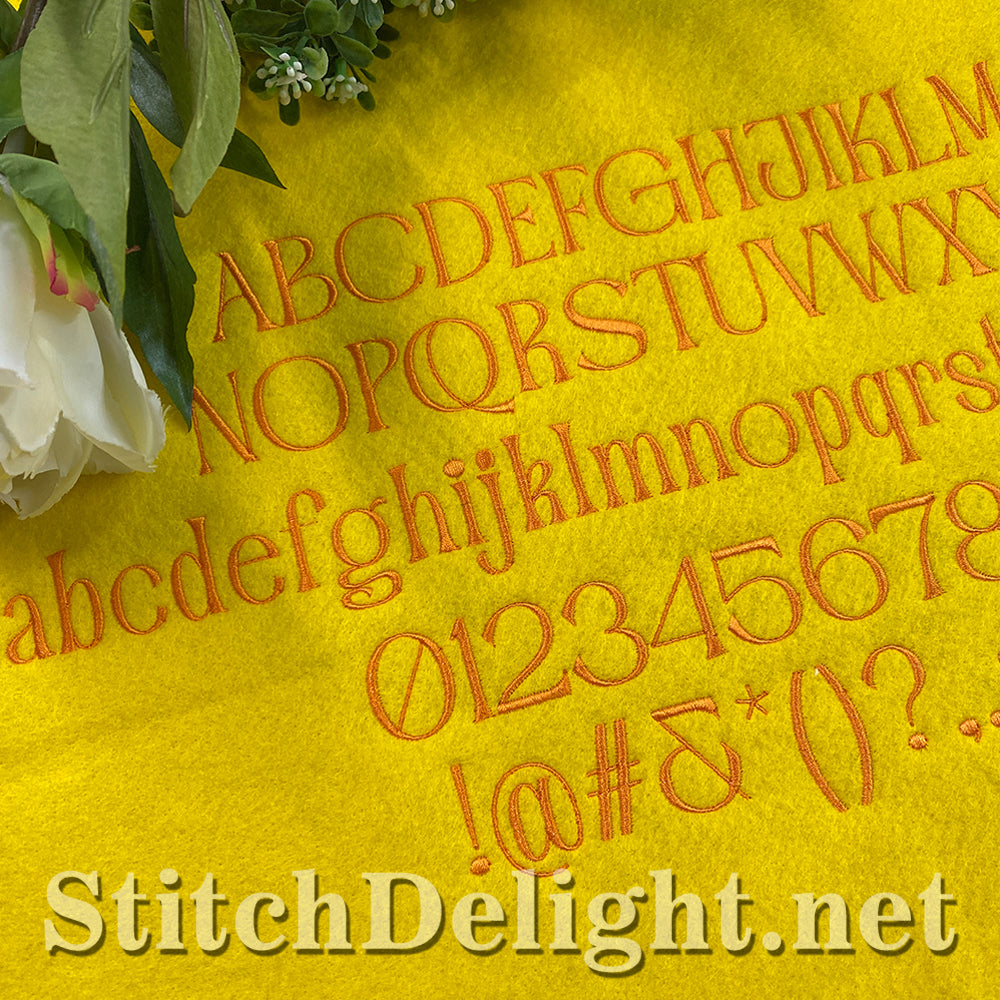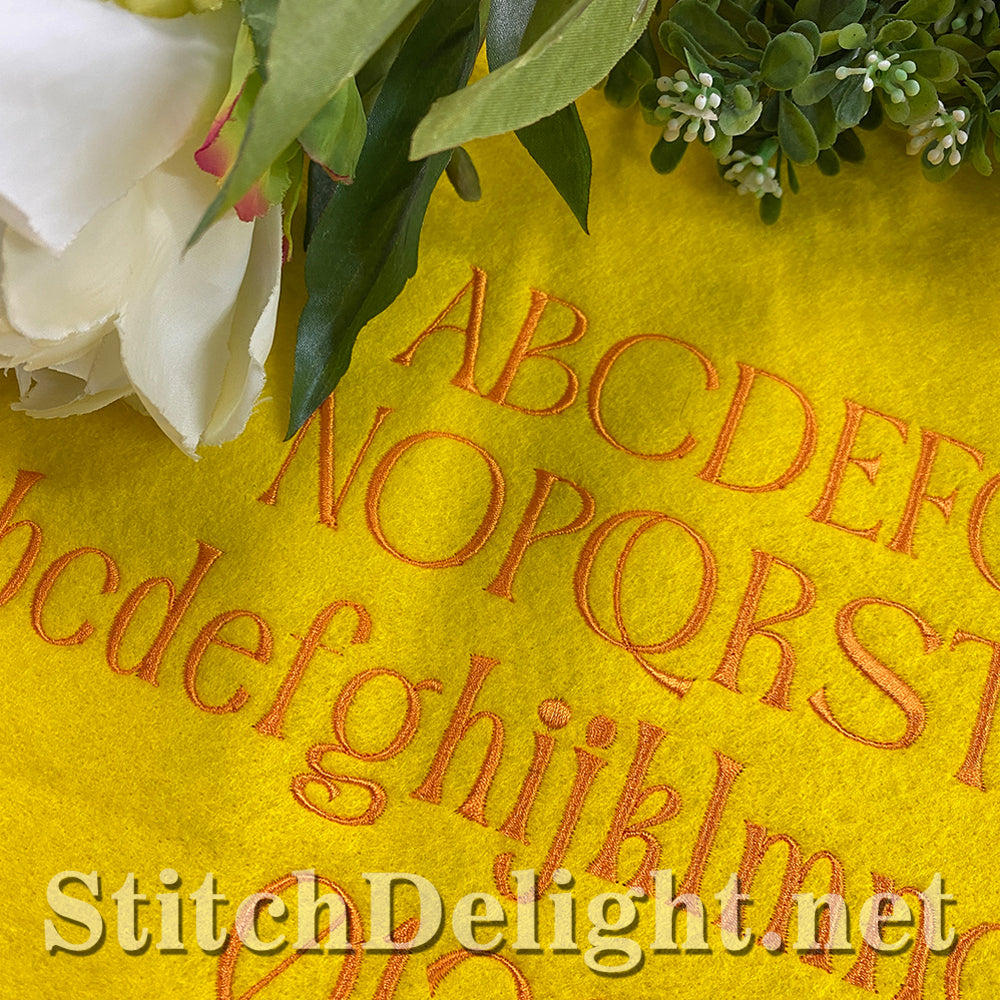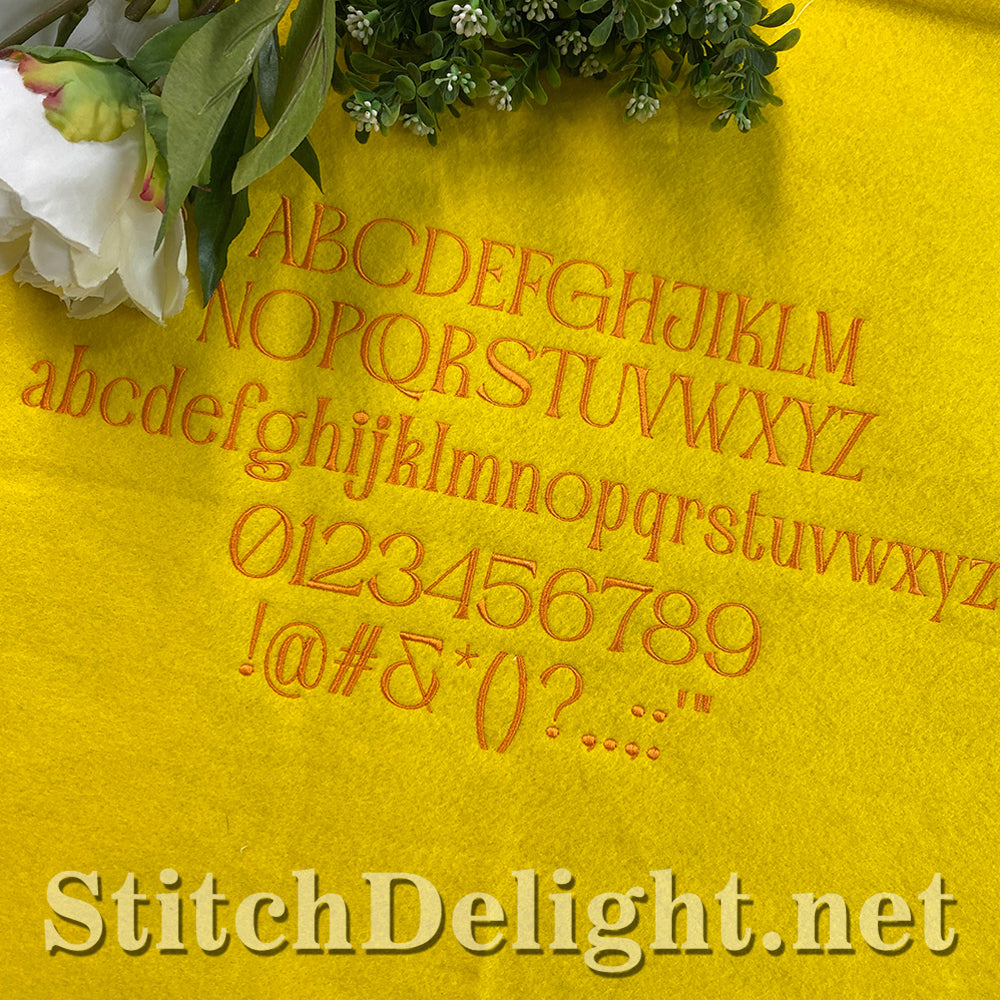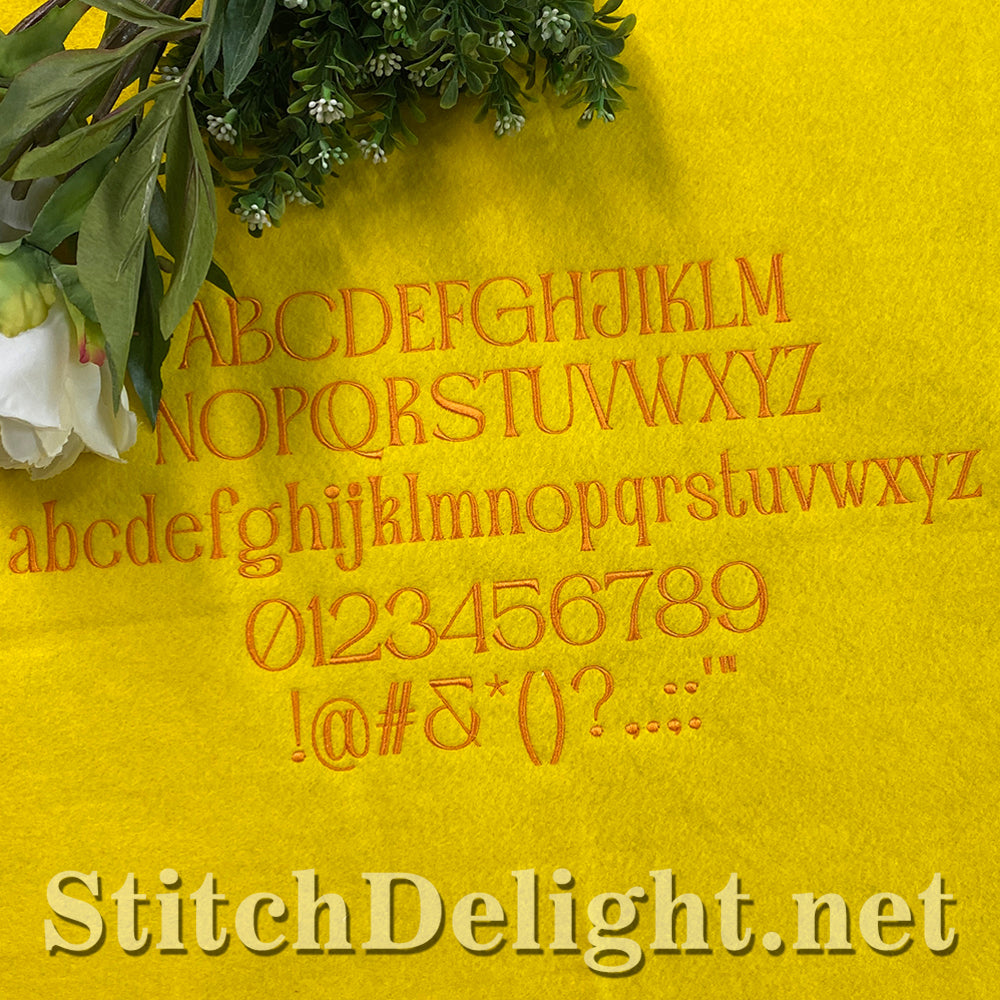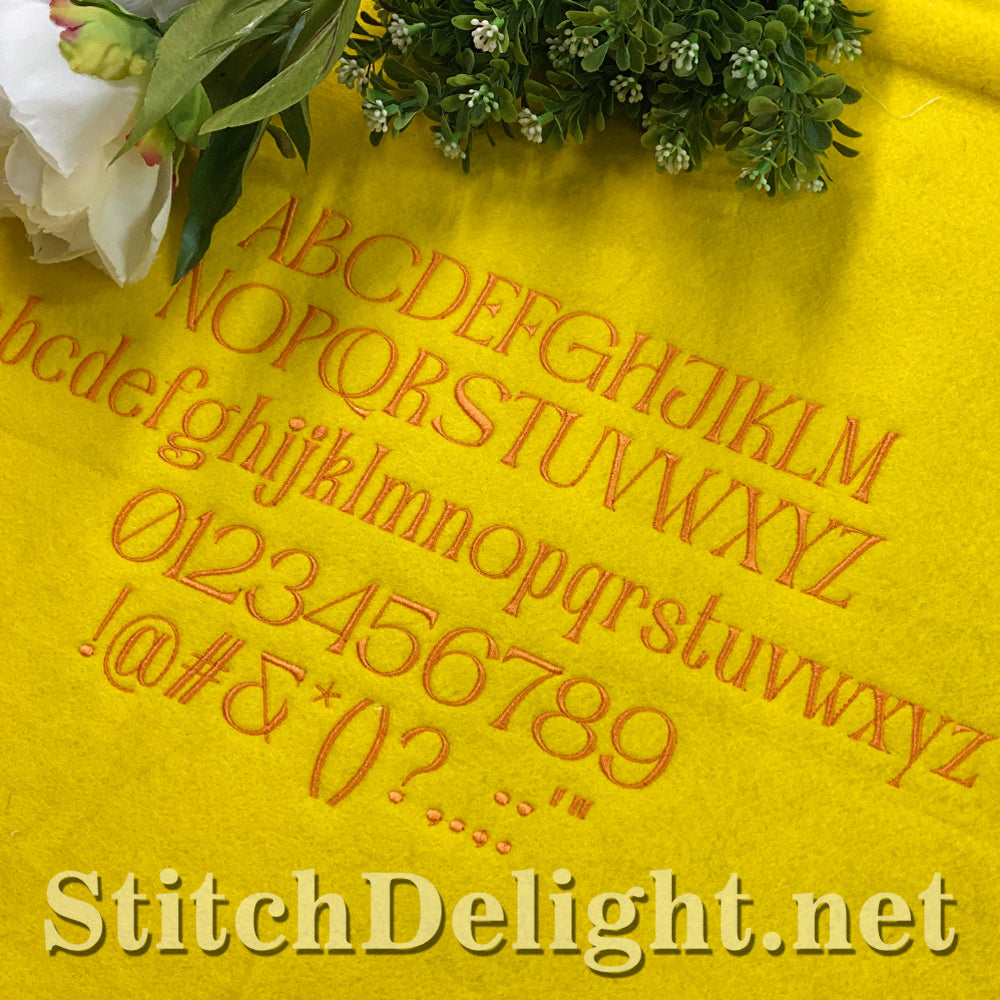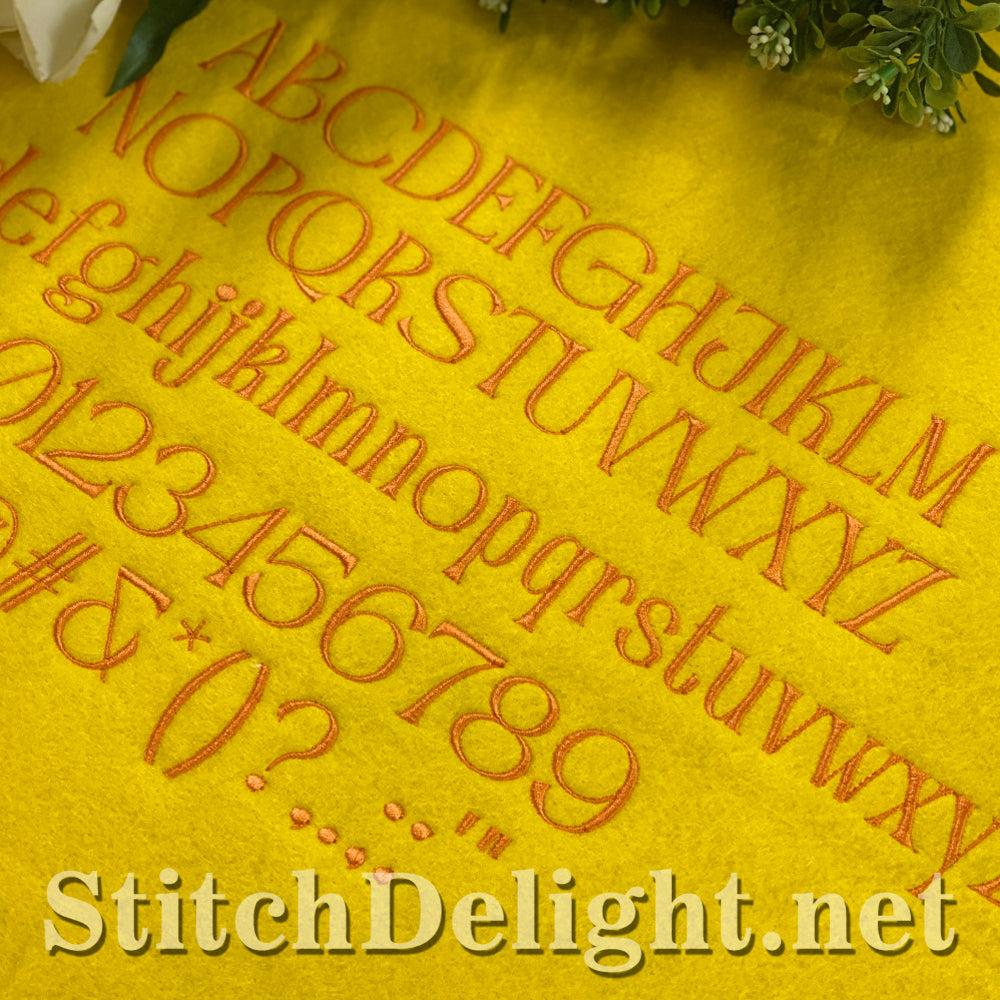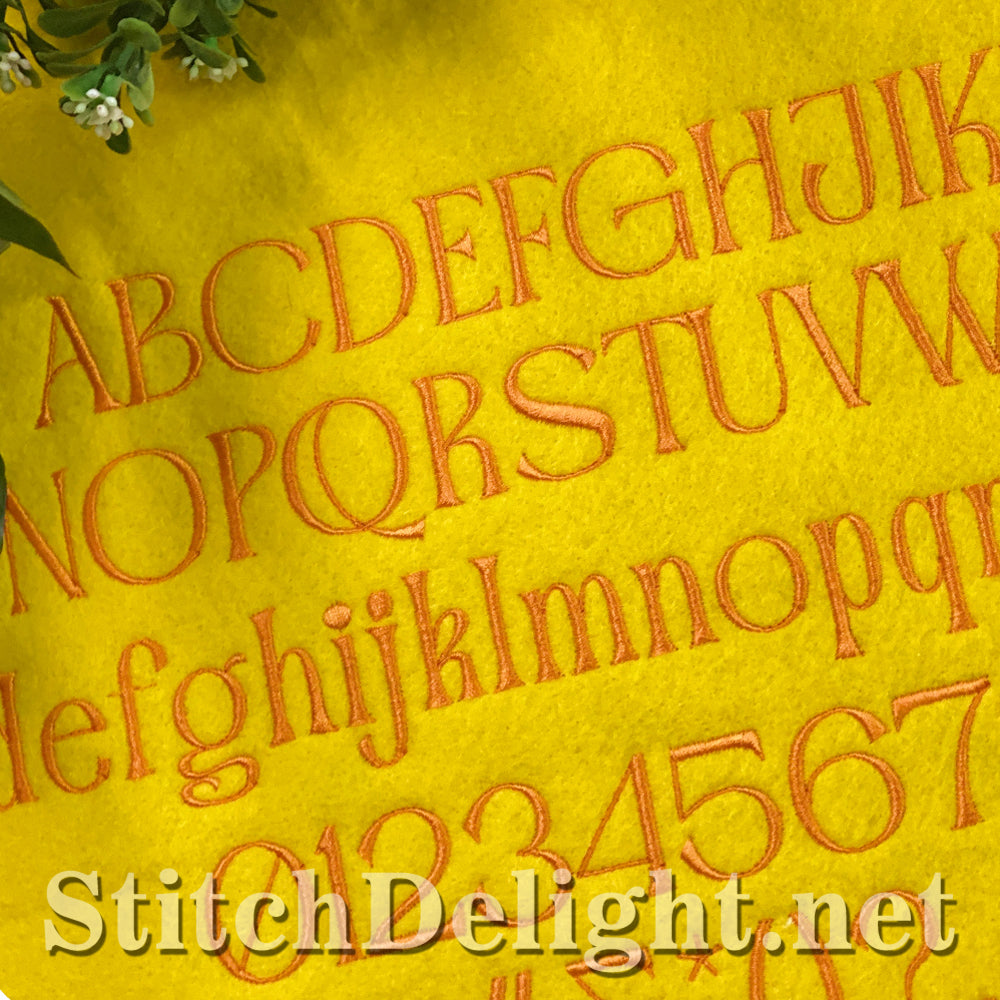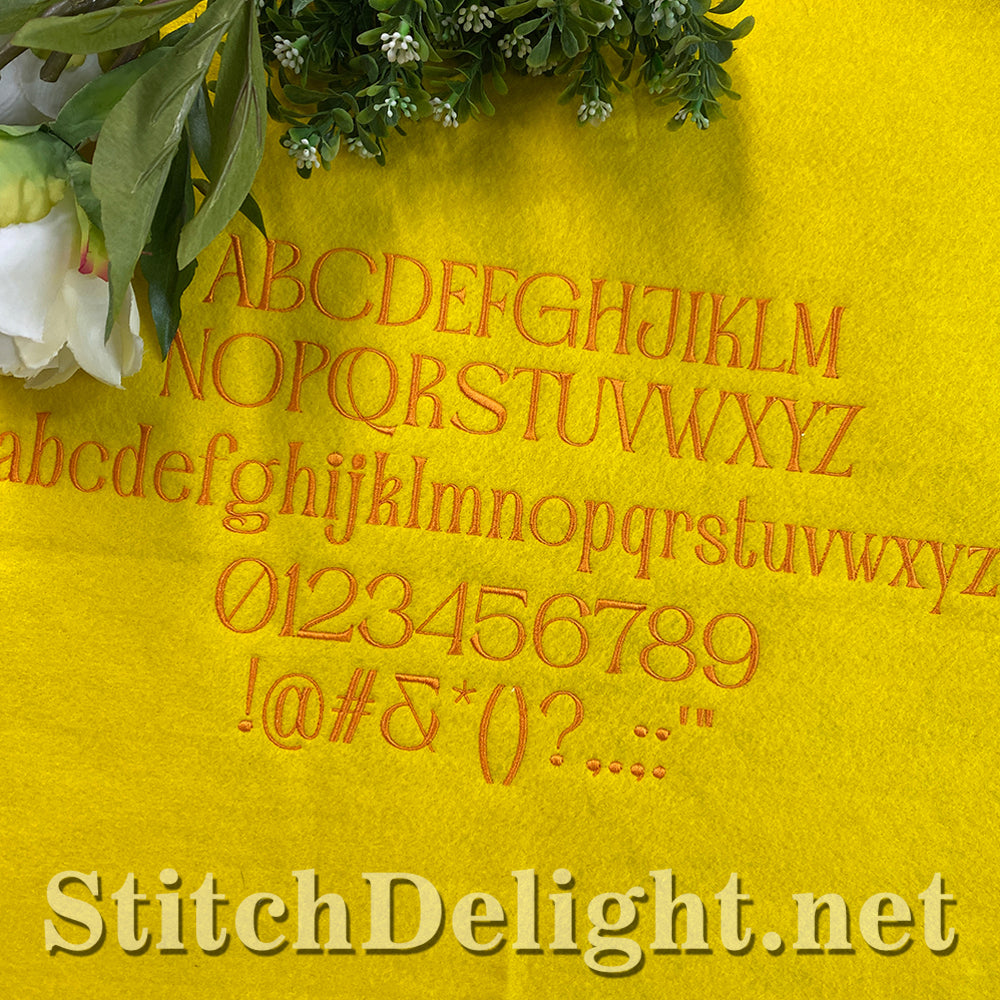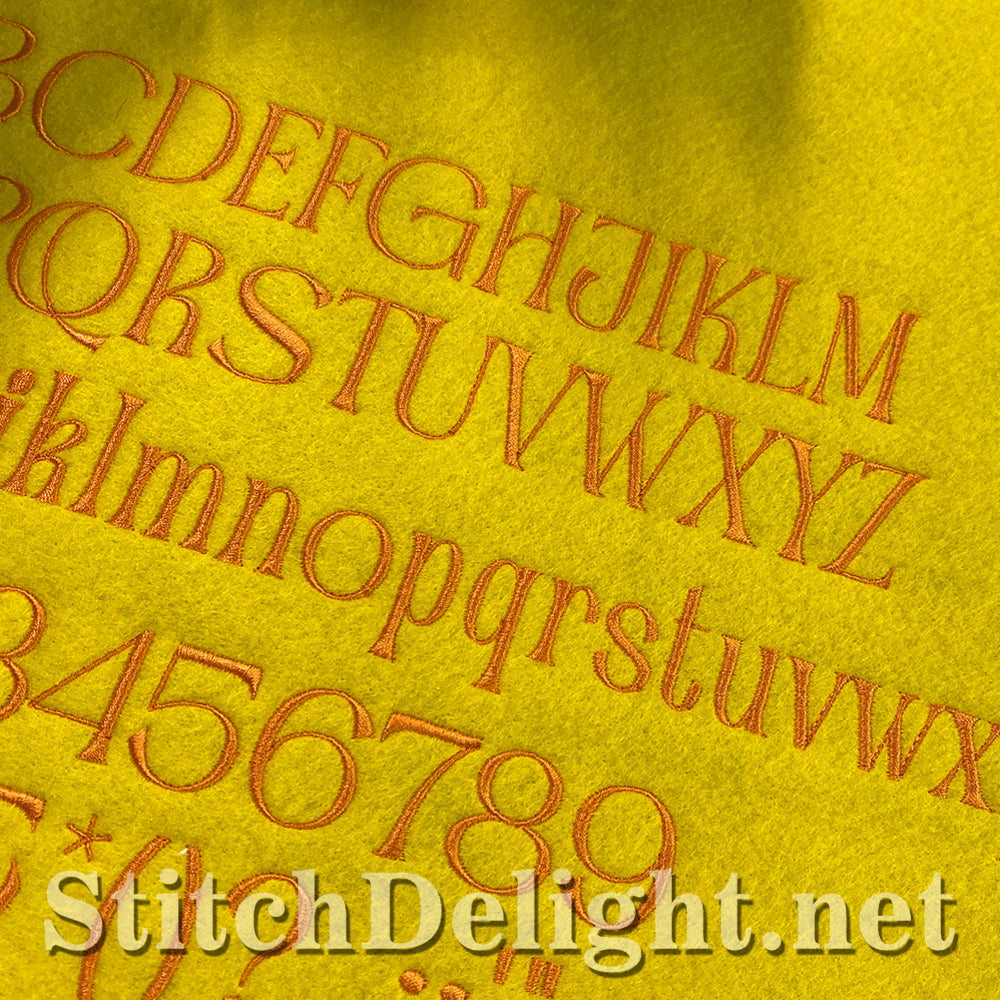
SDS5505 Walfer Font 1Inch
This beautiful font is just 1inch in height, stitches beautifully with elegant block style letters. BX format included, Numbers, Capital Letters, Small Letters and punctuation